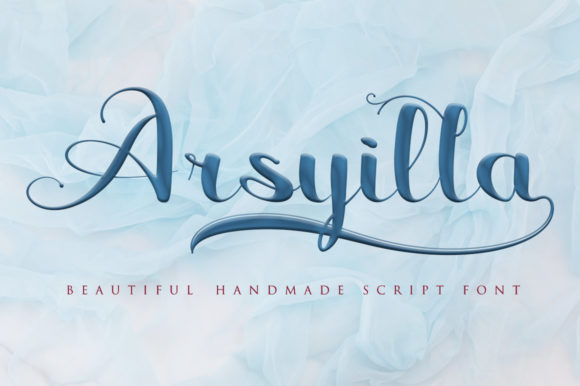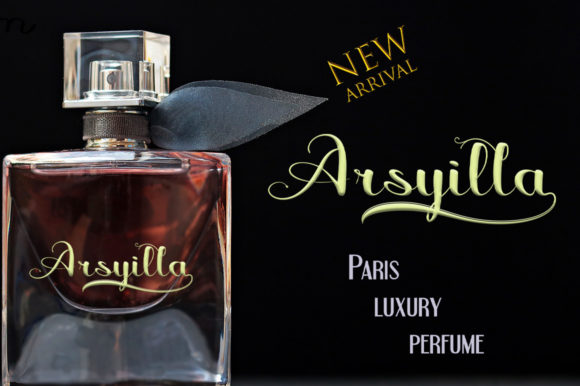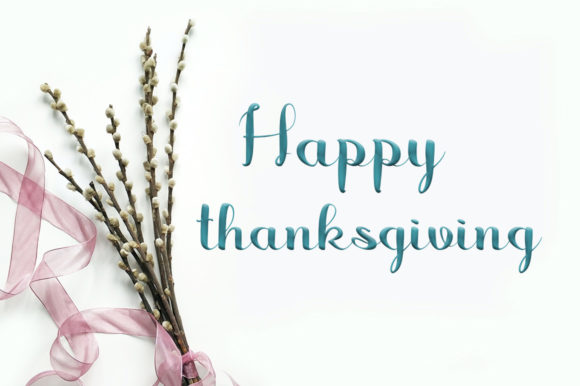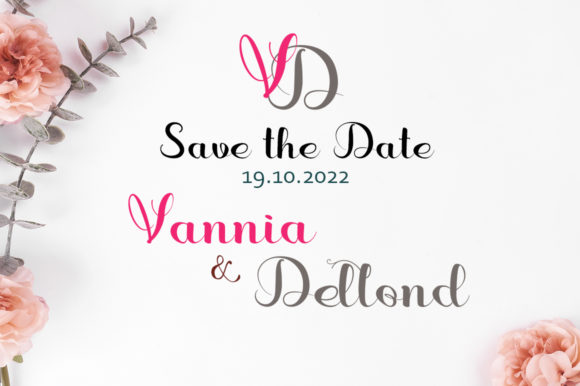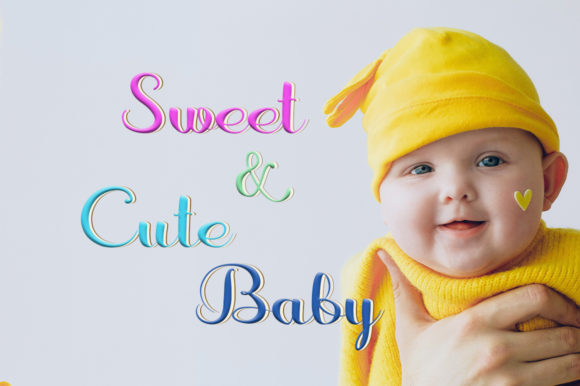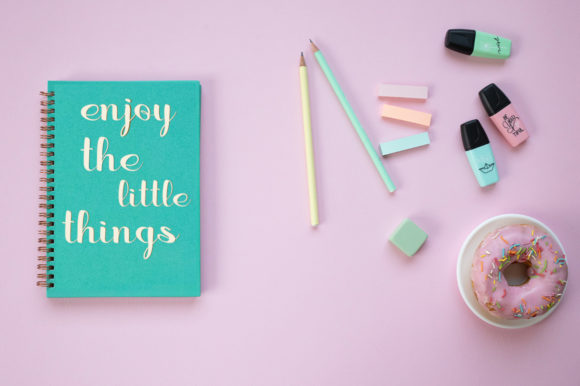
Introducing Arsyilla Font: The Playful Script Font to Elevate Your Designs
Are you tired of using the same old fonts in your designs? Look no further! Arsyilla Font is here to add a touch of charm and playfulness to your creative projects. This lovely script font features characters that seem to dance along the baseline, making it perfect for designers and crafters who want to add a personal touch to their work.
What Makes Arsyilla Font Special?
Arsyilla Font is a unique and eye-catching script font that is sure to make your designs stand out. Its charming and playful characters are designed to evoke a sense of whimsy and fun, making it perfect for projects that require a touch of personality. Whether you’re working on a branding project, a craft tutorial, or a social media graphic, Arsyilla Font is the perfect choice.
One of the standout features of Arsyilla Font is its ability to add a sense of movement and energy to your designs. The characters seem to dance along the baseline, creating a sense of dynamism and playfulness that is hard to resist. This makes it perfect for designs that require a bit of flair and personality.
How to Use Arsyilla Font in Your Designs
Arsyilla Font is incredibly versatile and can be used in a variety of design projects. Here are a few ideas to get you started:
- Branding and Logo Design: Use Arsyilla Font to add a touch of personality to your brand’s logo and marketing materials.
- Crafting and Scrapbooking: Add a playful touch to your craft projects and scrapbook pages with Arsyilla Font.
- Social Media Graphics: Use Arsyilla Font to create eye-catching social media graphics that are sure to grab attention.
- Wedding and Event Planning: Use Arsyilla Font to add a touch of whimsy and romance to your wedding and event planning designs.
Tips for Pairing Arsyilla Font with Other Fonts
When pairing Arsyilla Font with other fonts, it’s essential to choose fonts that complement its playful and charming personality. Here are a few tips to keep in mind:
- Pair with a sans-serif font: Pairing Arsyilla Font with a sans-serif font, such as Arial or Helvetica, creates a nice contrast between the playful script font and the clean, modern sans-serif font.
- Use a bold font: Pairing Arsyilla Font with a bold font, such as a bold serif or sans-serif font, creates a nice contrast between the light, playful script font and the bold, statement font.
- Experiment with font sizes: Experimenting with different font sizes can help create visual interest and hierarchy in your designs.
Arsyilla Font is a lovely script font that is sure to add a touch of charm and playfulness to your designs. Its unique and eye-catching characters make it perfect for designers and crafters who want to add a personal touch to their work. Whether you’re working on a branding project, a craft tutorial, or a social media graphic, Arsyilla Font is the perfect choice. So why not give it a try and see how it can elevate your designs?